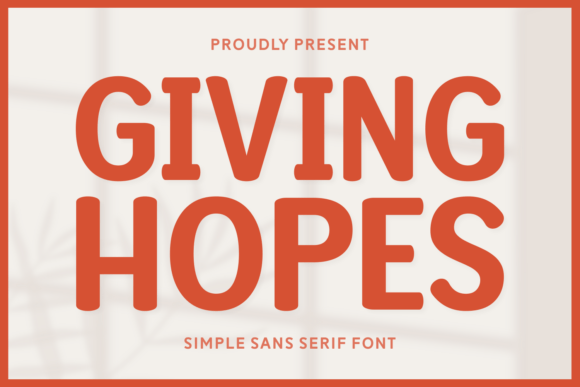
Giving Hopes Font: A Modern Sans-Serif Font for Uplifting Designs
In the world of typography, fonts play a crucial role in conveying emotions and messages. A well-designed font can elevate a brand’s identity, make social media posts more engaging, and add a touch of personality to inspirational designs. Introducing Giving Hopes Font, a modern sans-serif font that radiates warmth and positivity, perfect for designers and brands looking to make a lasting impact.
What is Giving Hopes Font?
Giving Hopes Font is a contemporary sans-serif font designed to evoke feelings of optimism and clarity. Its clean lines and smooth curves create a friendly and approachable feel, making it perfect for a wide range of design applications. Whether you’re working on branding projects, social media graphics, or inspirational designs, Giving Hopes Font is the ideal choice.
Key Features of Giving Hopes Font
- Modern Sans-Serif Design: Giving Hopes Font boasts a sleek and modern sans-serif design, making it perfect for contemporary brands and designs.
- Clean Lines and Smooth Curves: The font’s clean lines and smooth curves create a friendly and approachable feel, adding a touch of warmth to any design.
- Optimistic and Uplifting: Giving Hopes Font is designed to evoke feelings of optimism and positivity, making it perfect for inspirational designs and motivational content.
- Highly Versatile: The font is suitable for a wide range of design applications, including branding, social media, and inspirational designs.
Perfect for Branding
Giving Hopes Font is an excellent choice for branding projects, as it offers a unique combination of modernity and approachability. The font’s clean lines and smooth curves create a professional and friendly feel, making it perfect for:
- Logo Design: Create a lasting impression with a custom logo designed using Giving Hopes Font.
- Brand Guidelines: Establish a consistent brand identity with a font that reflects your brand’s values and personality.
- Marketing Materials: Use Giving Hopes Font to create marketing materials that are both visually appealing and effective.
Ideal for Social Media
In today’s digital age, social media plays a crucial role in connecting with audiences. Giving Hopes Font is perfect for social media graphics, as it offers a unique combination of modernity and friendliness. Use the font to:
- Create Engaging Posts: Design social media posts that are both visually appealing and engaging.
- Develop a Consistent Brand Voice: Establish a consistent brand voice across social media platforms with Giving Hopes Font.
- Boost Brand Awareness: Increase brand awareness with social media graphics that reflect your brand’s personality and values.
Inspirational Designs
Giving Hopes Font is designed to evoke feelings of optimism and positivity, making it perfect for inspirational designs. Use the font to:
- Motivational Quotes: Design motivational quotes that inspire and uplift your audience.
- Inspirational Posters: Create inspirational posters that reflect your brand’s values and personality.
- Uplifting Content: Develop uplifting content that resonates with your audience and leaves a lasting impression.
Why Choose Giving Hopes Font?
With so many fonts available, why choose Giving Hopes Font? Here are just a few reasons:
- Unique Design: Giving Hopes Font offers a unique combination of modernity and friendliness, making it perfect for brands looking to stand out.
- Highly Versatile: The font is suitable for a wide range of design applications, making it a great addition to any designer’s toolkit.
- Optimistic and Uplifting: Giving Hopes Font is designed to evoke feelings of optimism and positivity, making it perfect for inspirational designs and motivational content.
Giving Hopes Font is a modern sans-serif font that radiates warmth and positivity. With its clean lines and smooth curves, it offers a contemporary yet approachable feel, making it perfect for branding, social media, and inspirational designs. Whether you’re a designer or a brand looking to make a lasting impact, Giving Hopes Font is an excellent choice.